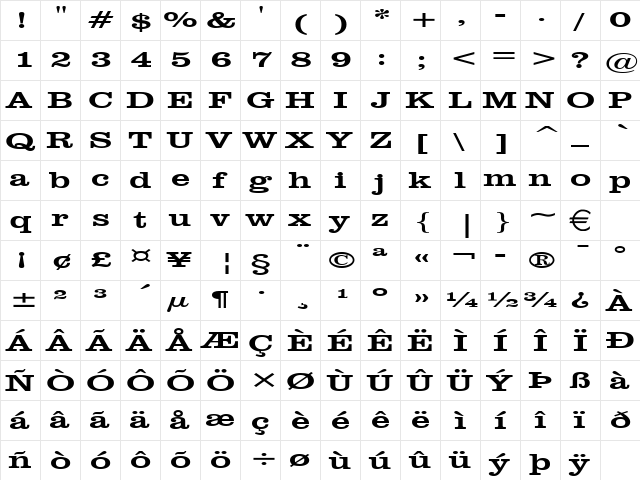
ClareExtended Normal
Design Context for ClareExtended Typeface
ClareExtended takes a measured approach to typography — its balanced proportions and neutral character make it a reliable workhorse for both digital and print work.